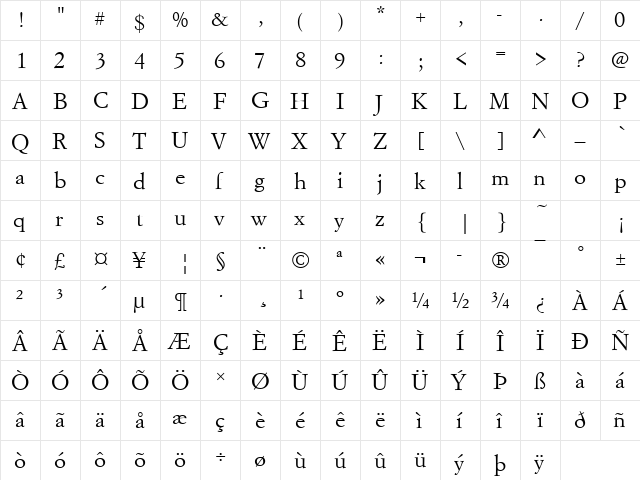
Garamond Becker No9 Regular
Design Context for Garamond Becker No9 Typeface
Garamond Becker No9 takes a measured approach to typography — its balanced proportions and neutral character make it a reliable workhorse for both digital and print work.